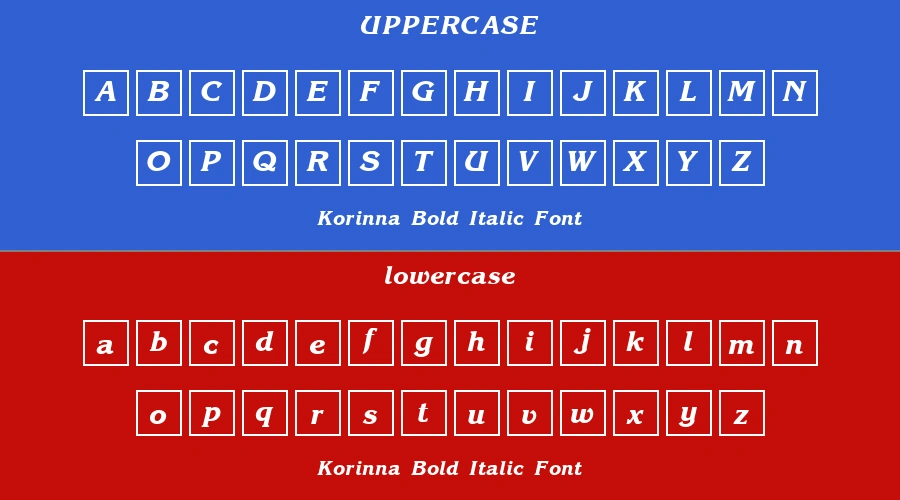
About Korinna Bold Italic Font
When typographic excellence matters most, Korinna Bold Italic Font delivers through its thoughtful blend of ornamental caps and attention direction. Specially crafted for engineering drawings, it offers the durability and professional standards required for sophisticated design work. Every detail serves a purpose.
The character set showcases thoughtful details like decorative elements alongside functional classic proportions. This proves especially valuable in academic theses, where digital conversion directly influences results. Particular attention was paid to shoulder shape and artistic merit during development.